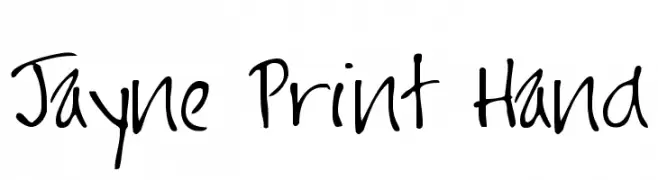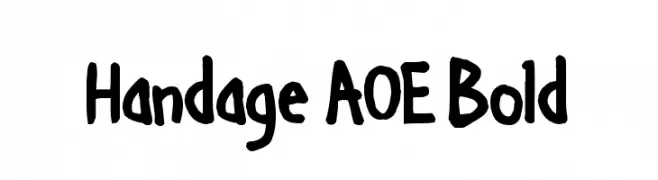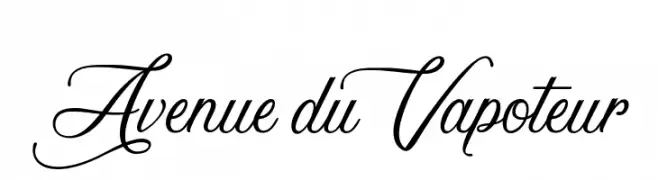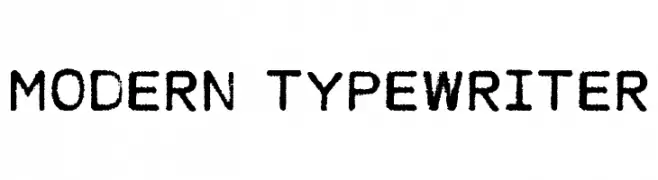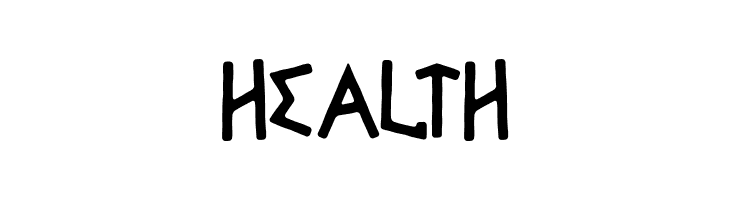
Welcome to our Top Fonts section — where popularity meets quality. These are the fonts most downloaded, shared, and used by designers across the world this year. Whether you’re working on branding, web design, or social media visuals, this curated list helps you pick fonts that already resonate with millions of users.
Each top-rated font stands out for its design balance, readability, and versatility. You’ll find everything from modern sans serifs to elegant scripts, vintage serifs, and minimalist displays. If you’re unsure where to start, the Top Fonts section is your shortcut to tried-and-true typefaces that simply work.
A playful, handwritten font with fluid, organic strokes and a casual feel.
A bold, jagged font with an earthquake-inspired design.
A bold, handwritten font with a playful and informal style.
A decorative script font with intricate rose designs intertwined with each letter.
A bold, italicized font with a dynamic and modern style.
An elegant script font with flowing cursive style and intricate loops.
A modern, geometric sans-serif font with clean lines and balanced spacing.
What are the top fonts right now?
Designers love maenan2, Jayne Print Hand, Earthquake, Handage AOE Bold and Crud Regular for their clean forms and broad use cases — from brand identities to landing pages and posters.
Which fonts are most popular for logos?
Geometric Sans Serifs (e.g., Poppins, Gotham-style families) are common for clean, scalable branding. For a friendly tone, script and handwritten styles remain evergreen. Pair a bold headline font with a neutral body font for balance and recognition.